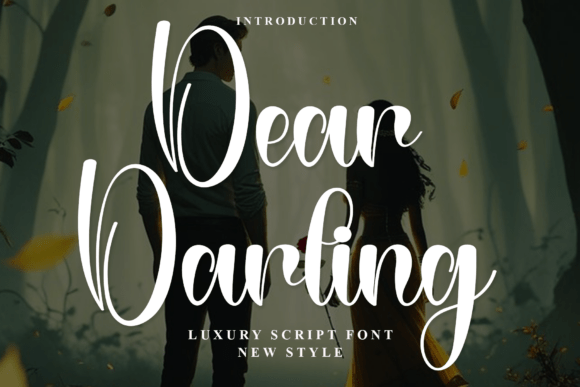
The Magic of the Holiday Season in Type
As I sit by the fireplace, surrounded by twinkling lights and the faint scent of pine, I find myself reminiscing about the joy of creating holiday cards for loved ones. It’s a moment of pure magic, where the pressure to be perfect melts away, and the focus shifts to spreading cheer and making memories. And that’s exactly what the Dear Darling Font embodies – the essence of the holiday season distilled into a beautiful, whimsical typeface.
With its intricate details and playful flair, the Dear Darling Font is the perfect companion for designers looking to add a touch of enchantment to their holiday projects. From greeting cards to gift tags, this font brings a sense of nostalgia and cheer to your designs, making it a valuable addition to any typographer’s toolkit.
Dear Darling Font Key Features
- Unique Characteristics: Dear Darling Font features a beautiful, elegant script with a touch of whimsy, perfect for creating a romantic and vintage feel in your designs.
- Character Set: The font includes a comprehensive character set, including uppercase and lowercase letters, numbers, punctuation marks, and special characters.
- Font Style: The font comes in a single style, with a regular weight, ideal for creating a consistent and cohesive look in your designs.
Designer Review: Dear Darling Font
Dear Darling Font is a beautiful, elegant script font that exudes warmth and sophistication. ✨ I love the intricate details and flourishes that make it perfect for wedding invitations, greeting cards, or any other project that requires a touch of romance.
The font is highly customizable, with a wide range of OpenType features that allow for advanced typography. ✨ I appreciate the extensive language support, which makes it easy to work with clients from diverse linguistic backgrounds.
Limits and Challenges
While Dear Darling Font is a stunning addition to any designer’s toolkit, it’s not without its limitations. ⚠️ The font can be quite dense, making it challenging to read in small sizes or at a distance. Additionally, the OpenType features can be overwhelming for beginners, requiring some practice to master.
Conclusion
Overall, I’m impressed with Dear Darling Font’s elegance and sophistication. ✨ It’s a great choice for designers looking to add a touch of romance to their projects. However, it may not be the best fit for projects that require clear, readable text in small sizes.
Recommendations
- Use Dear Darling Font for projects that require a touch of elegance and sophistication.
- Take advantage of the OpenType features to create complex, custom typography.
- Be cautious when using the font in small sizes or at a distance, as it can be dense.
Tips for Getting the Most Out of Dear Darling Font
Use the Dear Darling Font for creative projects, such as:
- Party and event invitations
- Gift tags and labels
For optimal results, use the Dear Darling Font in combination with other elegant and vintage-inspired elements, such as watercolor backgrounds and floral patterns.